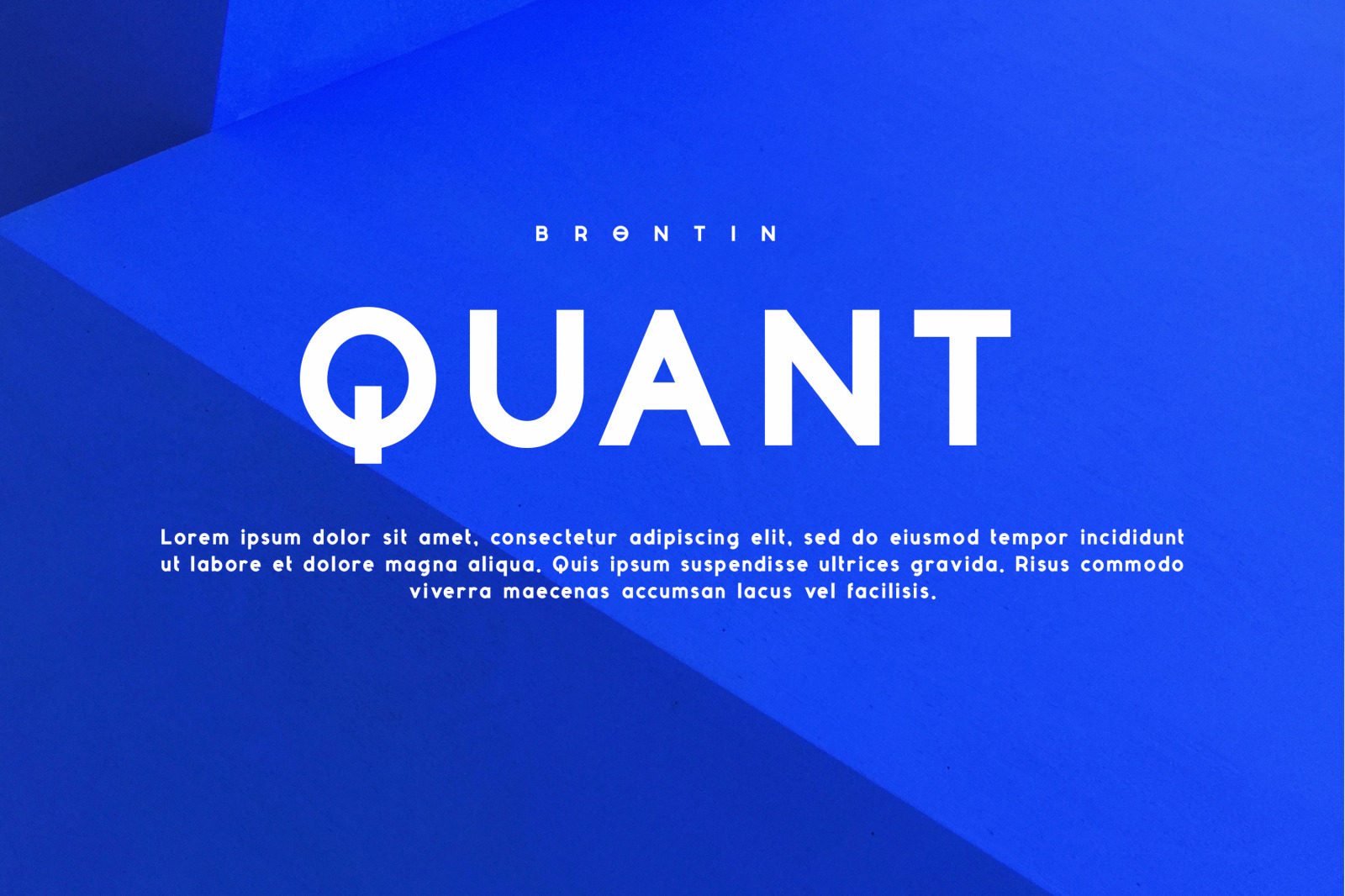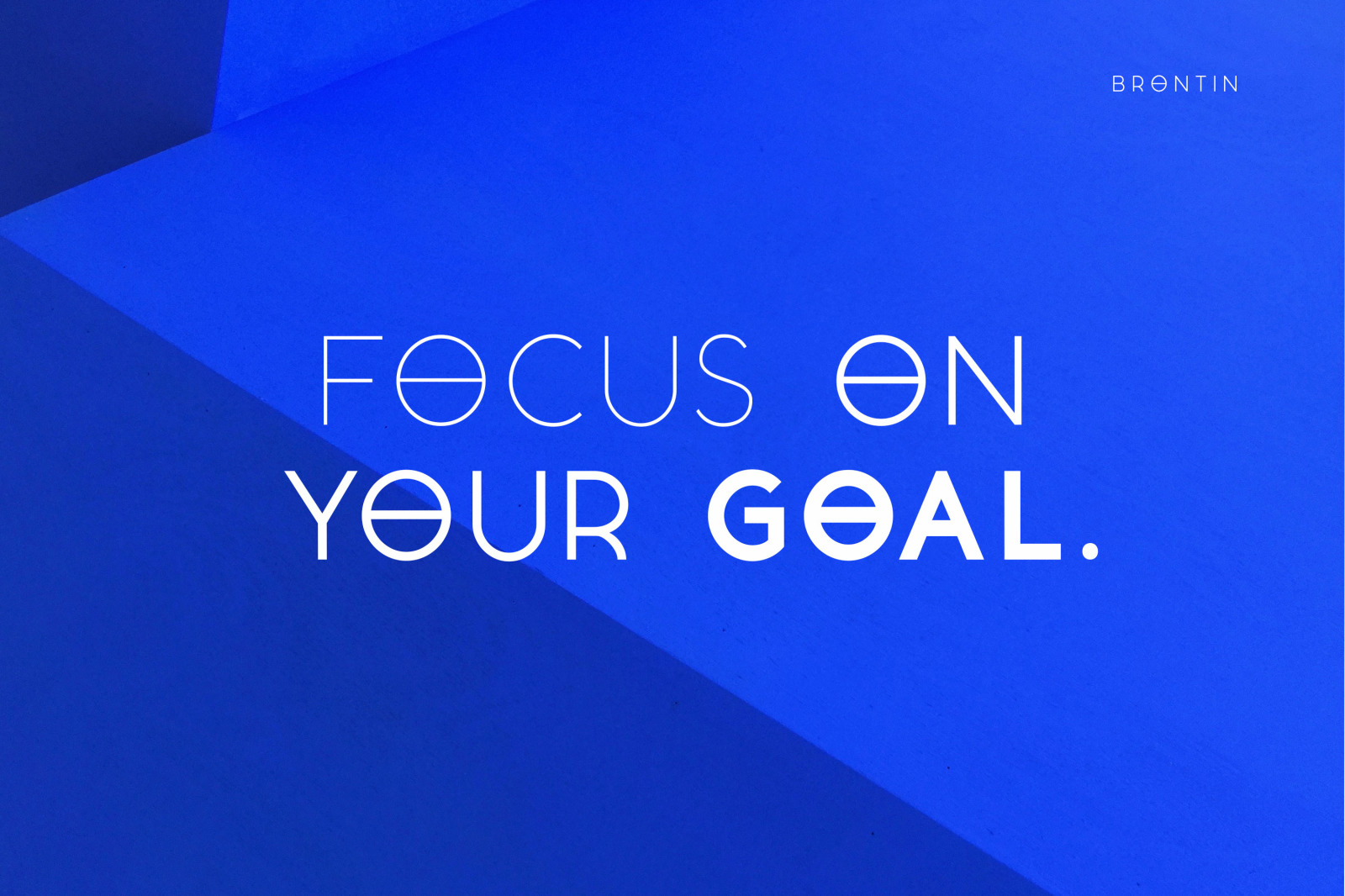
Brontin Font
Brontin is a clean and modern looking display font. It will look stunning on any poster, flyer or print.
Use this font for your designs and explore its endless possibilities.